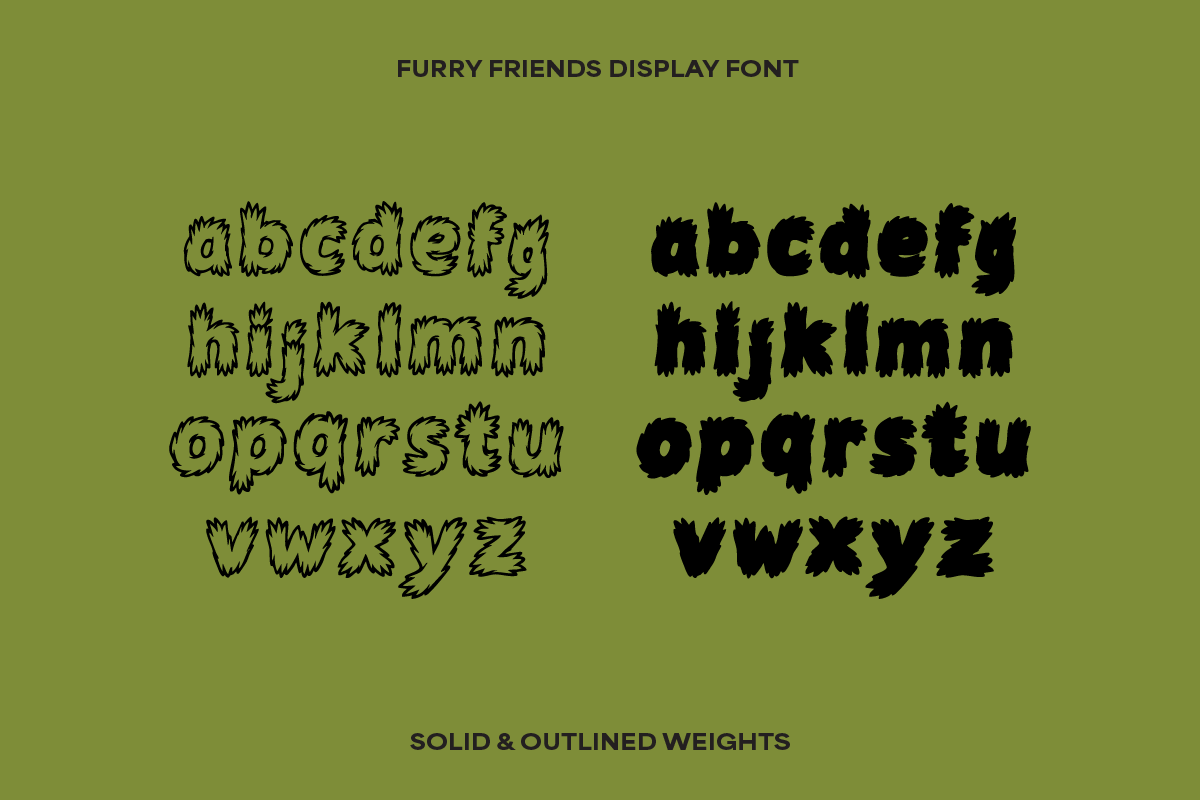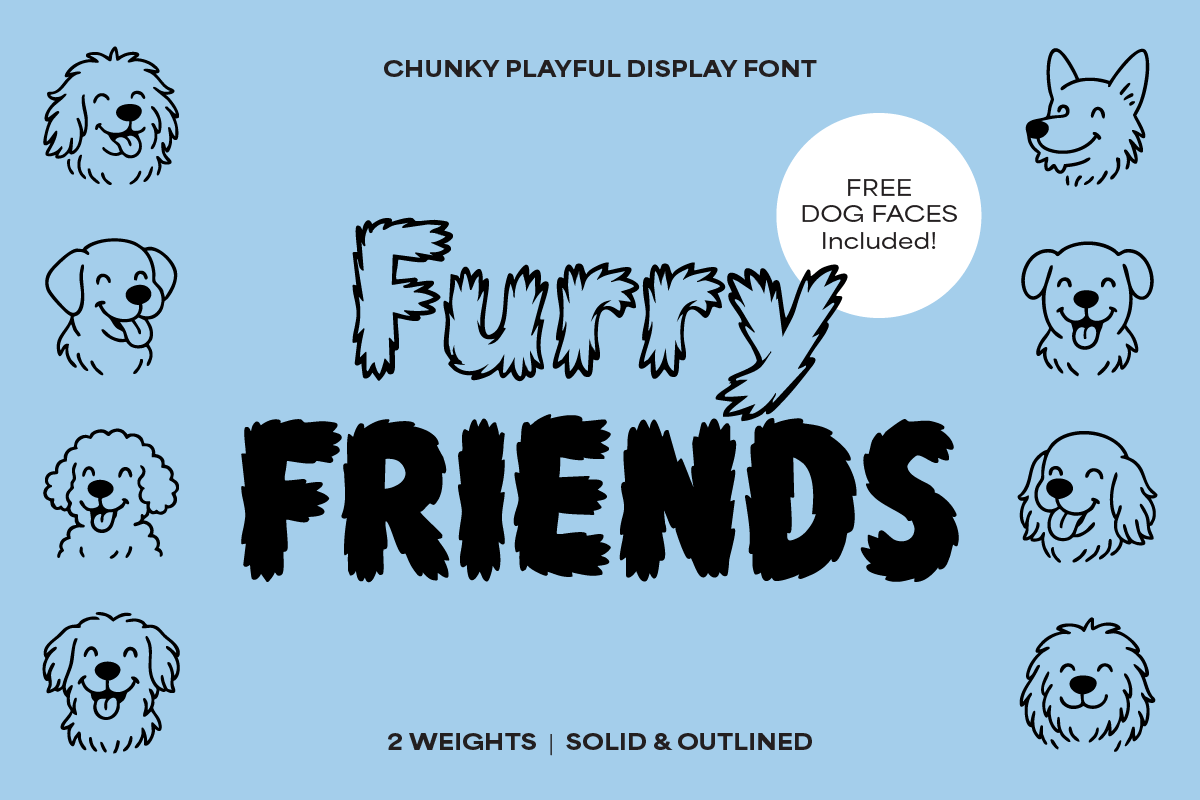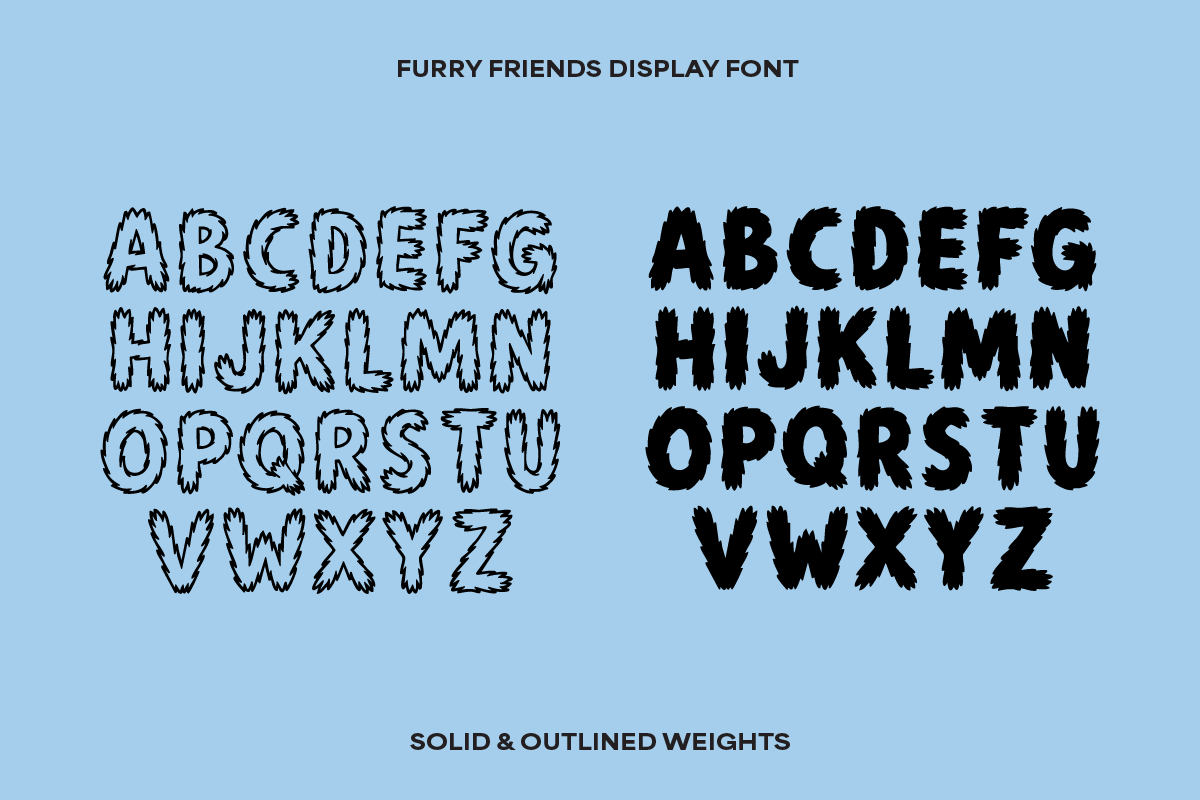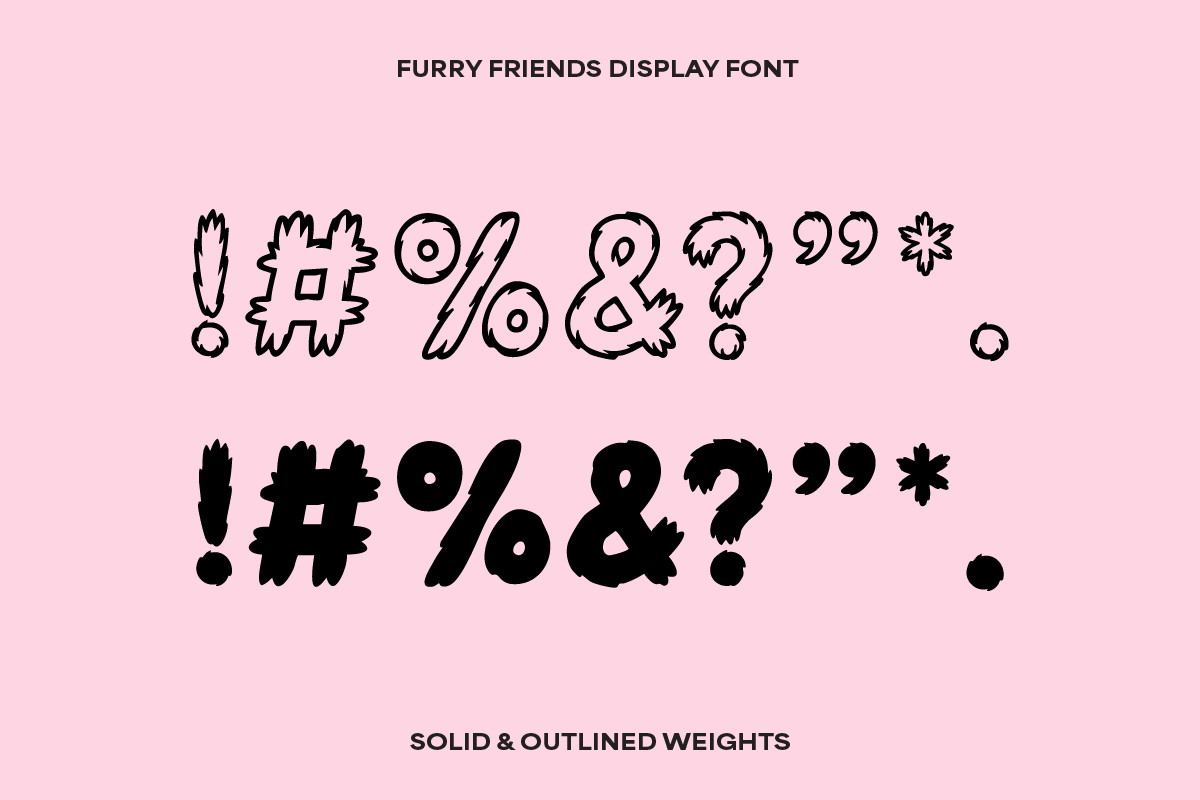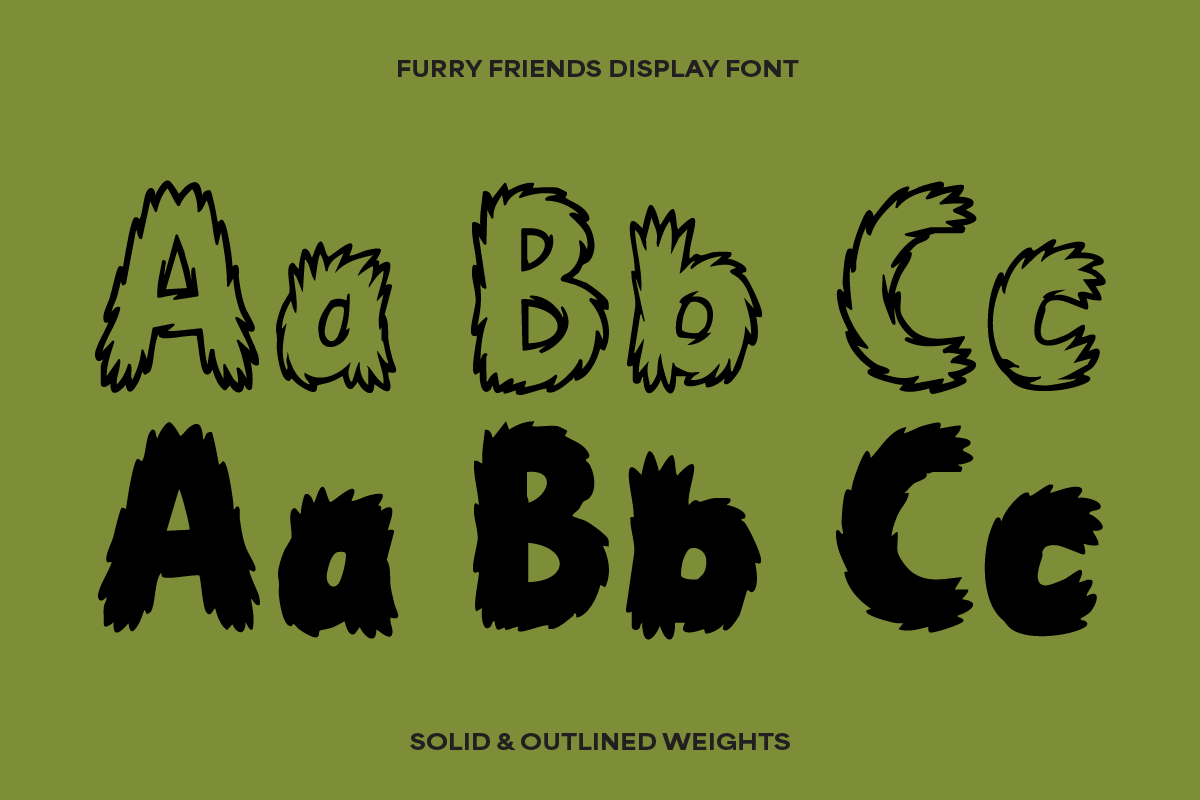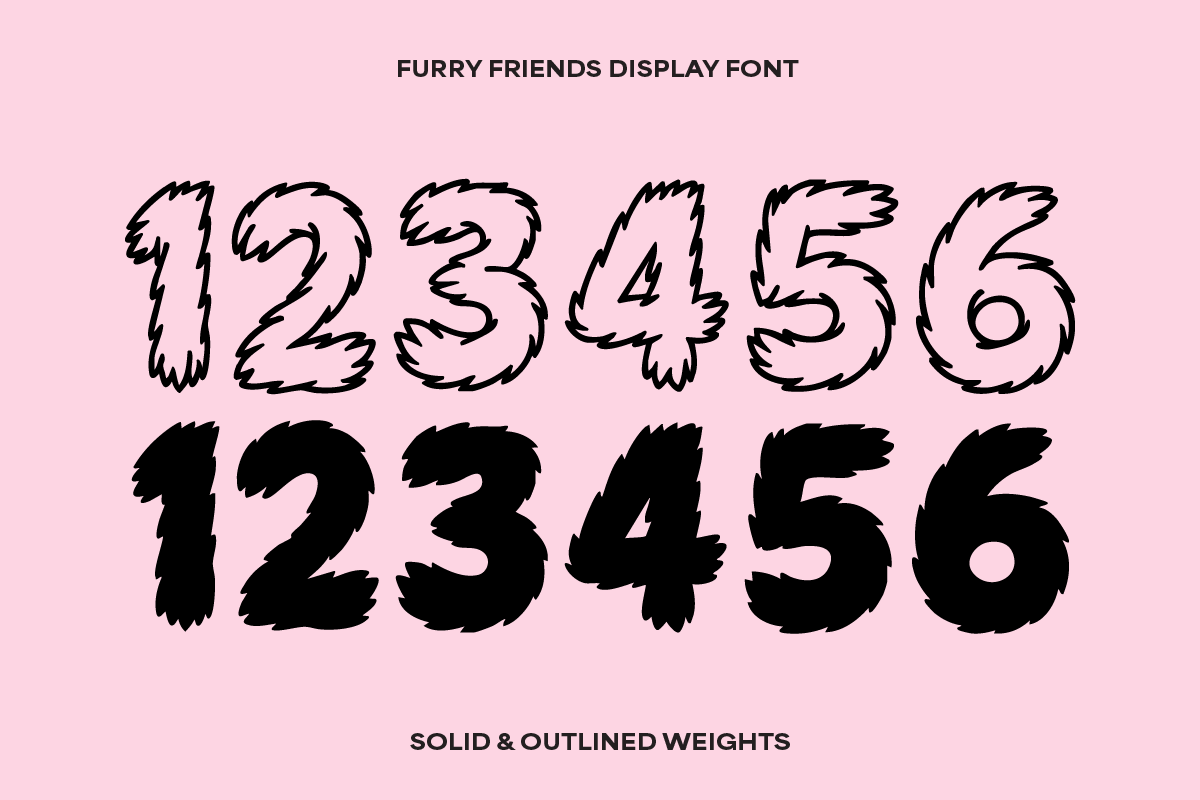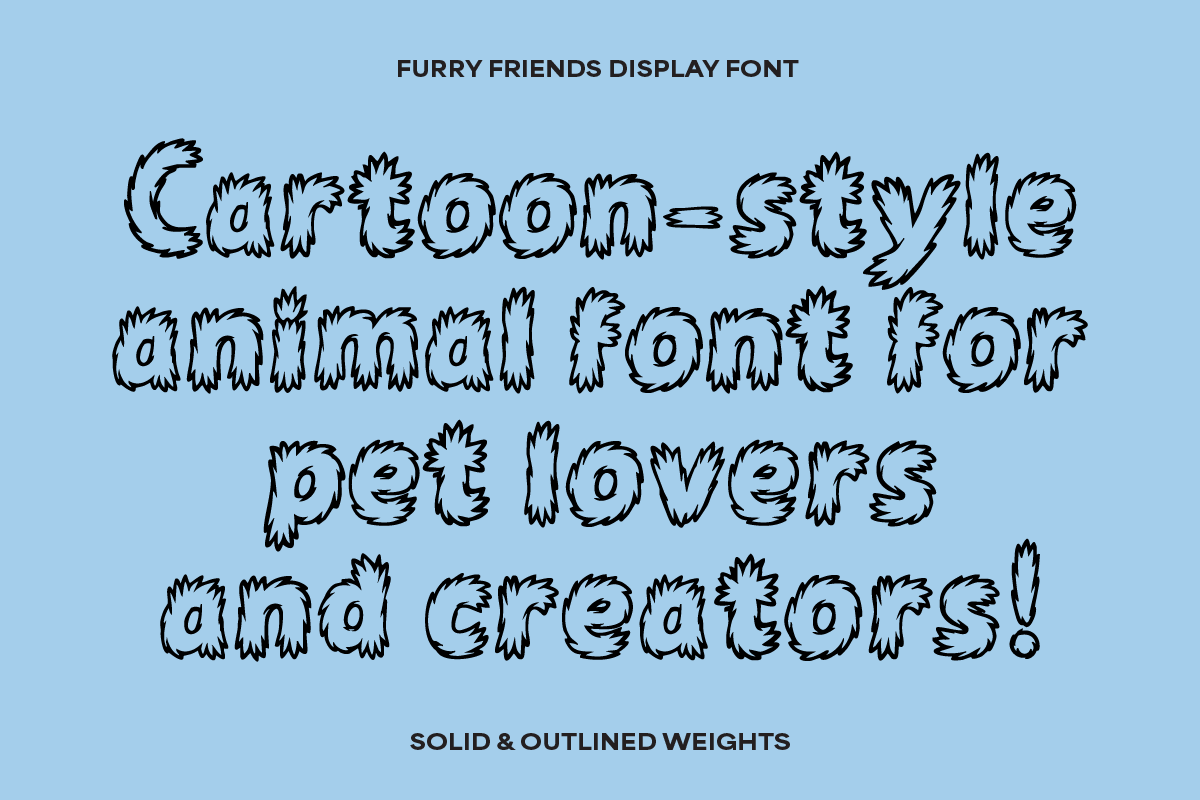
Furry Friends Cartoon Display Font
Looking for the perfect dog font for your next project? Furry Friends Display is a hand-drawn, cartoon-style fur font made for playful branding, pet packaging, dog groomers, walkers, kids’ brands, and anyone who wants to add a little wag to their work.
This package also includes a bonus vector pack of furry dog faces to customize your designs with even more bold personality.
Font Styles
- Pet product packaging & branding
- Kids birthday invites & party goods
- Handmade sticker designs & merch